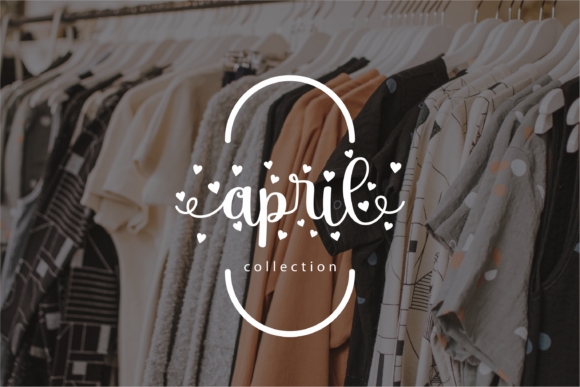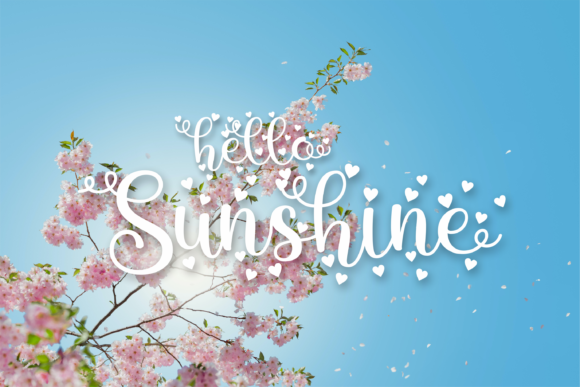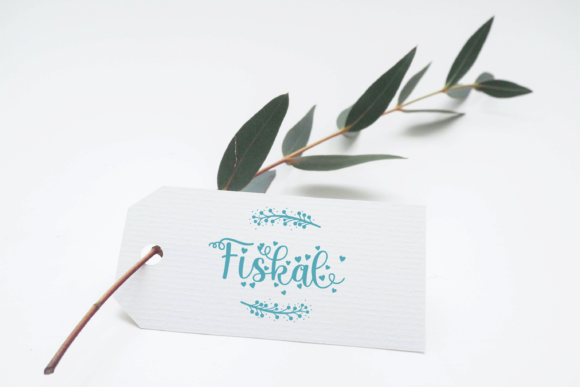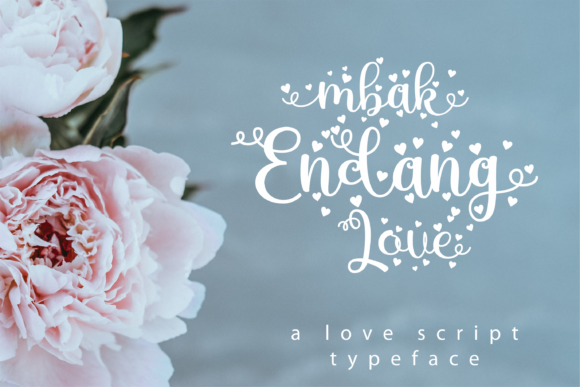
Introduction to Mbak Endang Love Font
Mbak Endang Love is a sweet, soft hand-lettered font.
The playful rounded characters make it the perfect font for creating stunning art Get inspired by Mbak Endang Love with its authentic feel and use it to create gorgeous wedding invitations, beautiful stationary art, eye-catching social media posts, and cute greeting cards.
Key Features of Mbak Endang Love Font